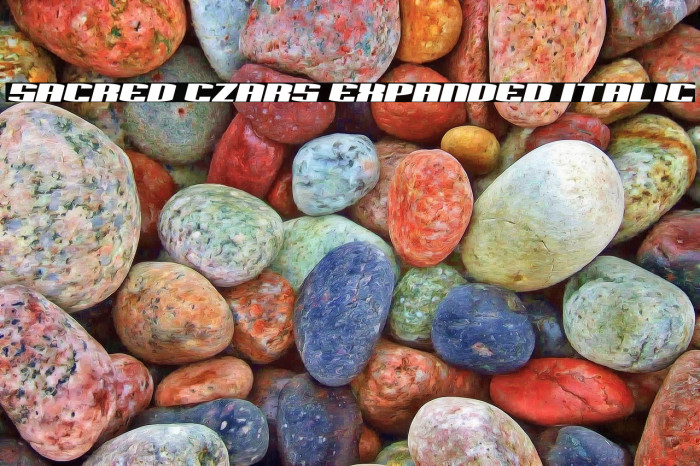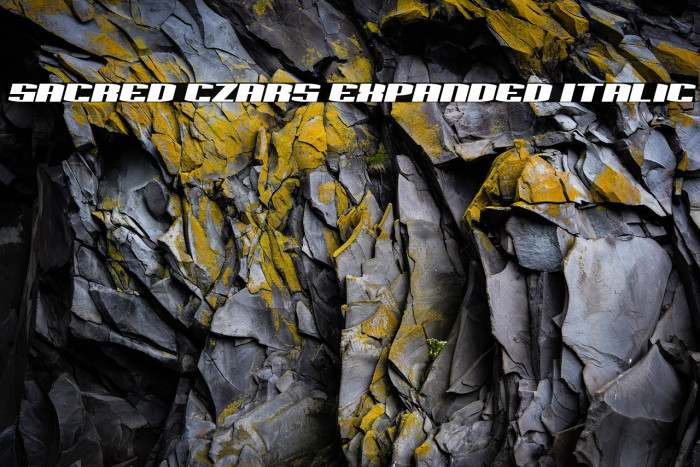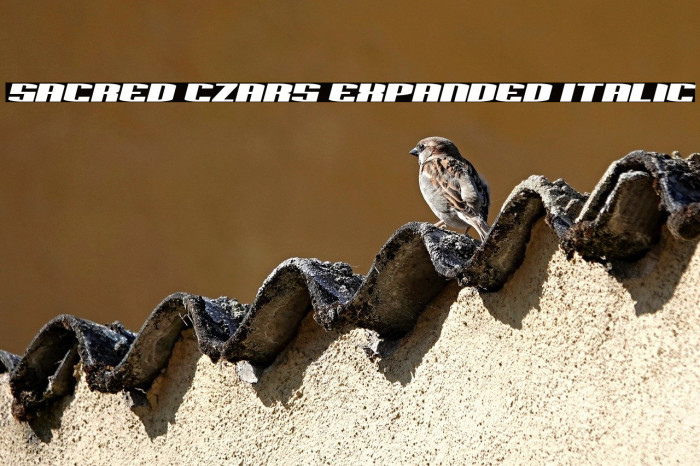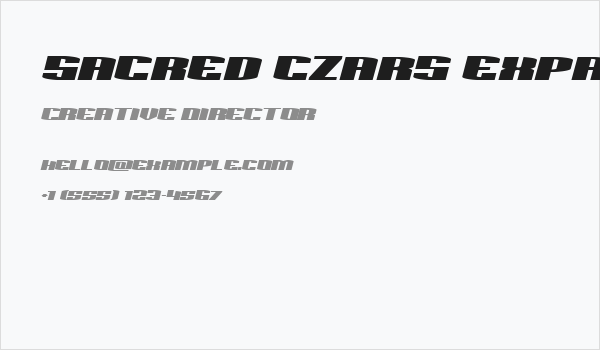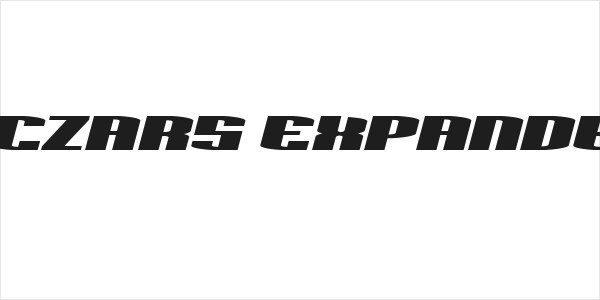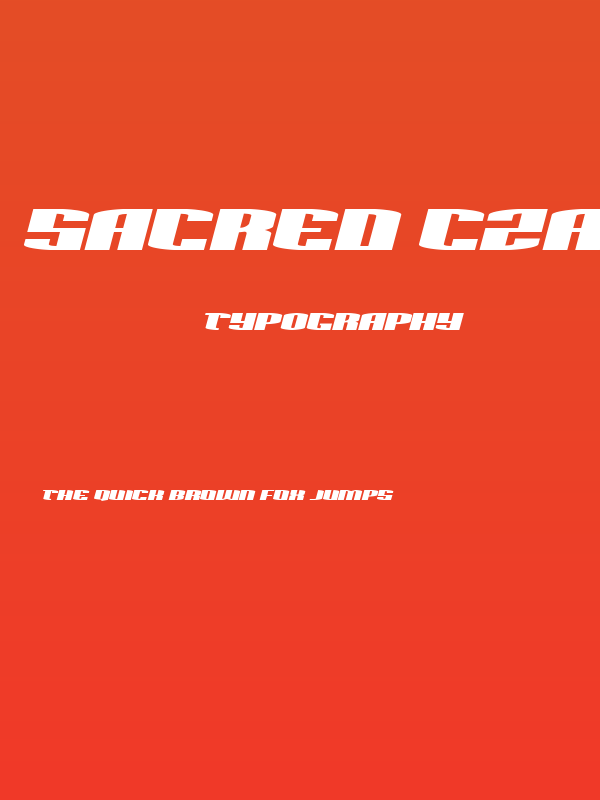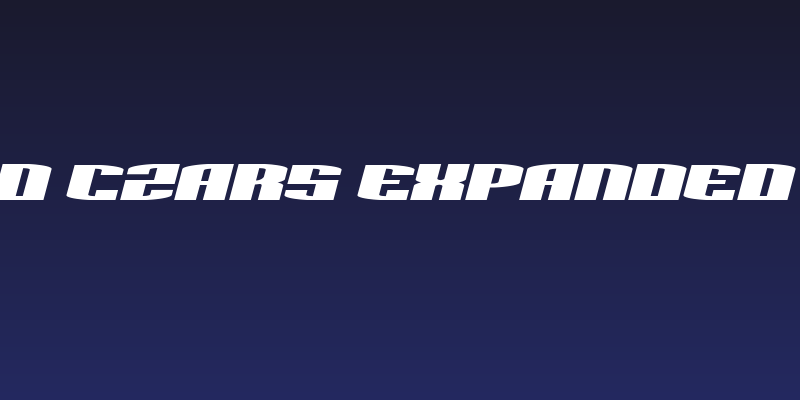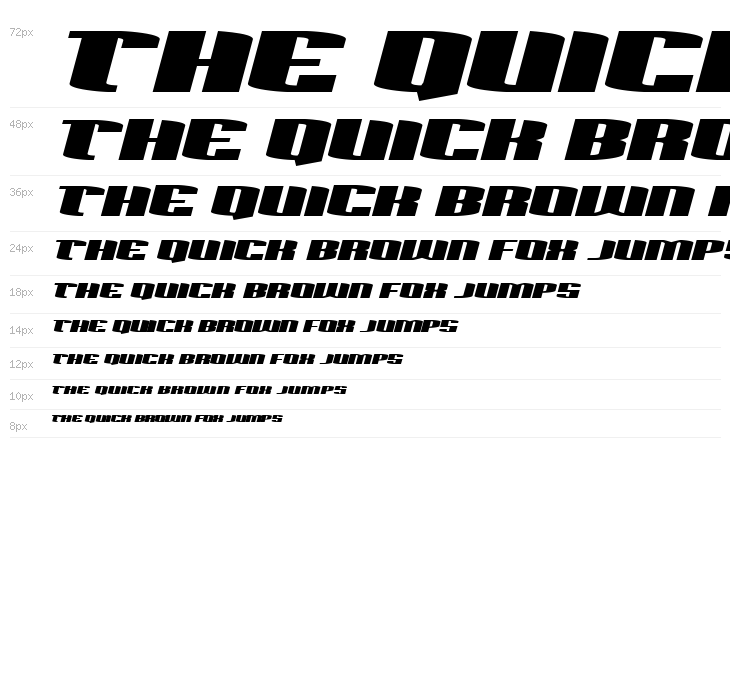
Sacred Czars Expanded Italic Font
Sacred Czars Expanded Italic Description
This font features a bold and dynamic style with a distinctly modern flair. The characters are sharply angled and italicized, giving a sense of movement and energy. The expanded width of the letters adds a commanding presence, making it ideal for attention-grabbing headlines or impactful logos. The high contrast between thick and thin strokes enhances its boldness, while the tight character spacing ensures a cohesive and compact appearance. This font's unique design elements make it suitable for projects that require a strong and assertive visual statement.
| Proposed Projects | Ideal for branding, advertising, sports team logos, and dynamic poster designs. |